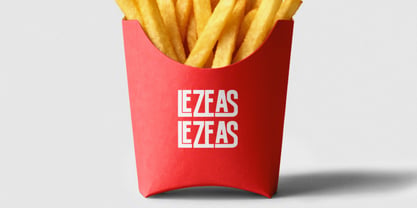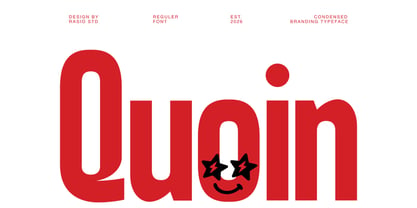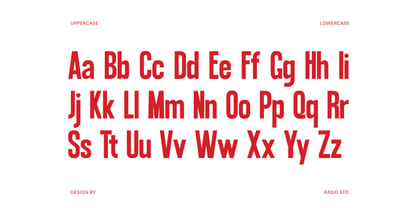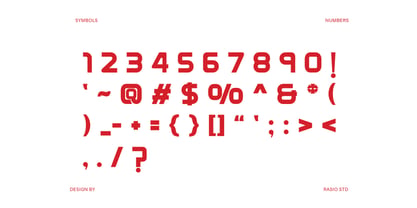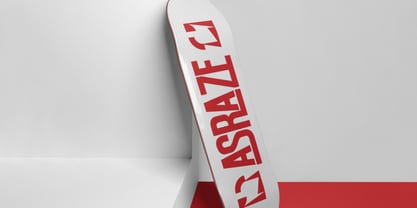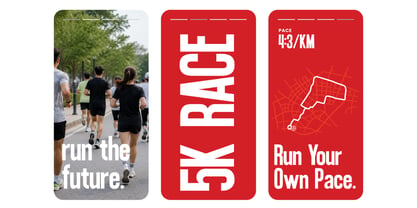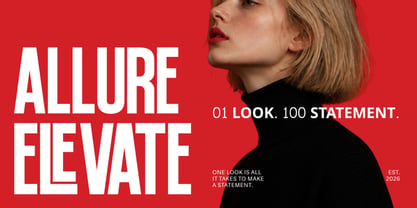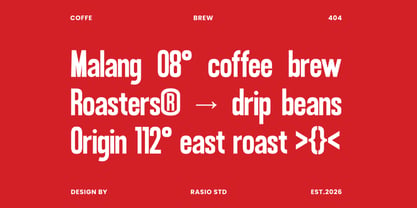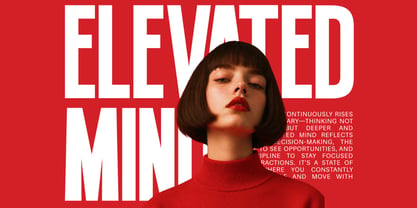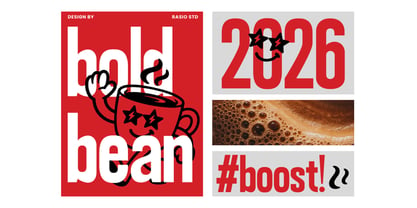
Quoin
by Rasio Studio
Quoin Condensed Branding Typeface showcases a bold condensed structure with clean geometric proportions and strong vertical rhythm. The typeface features tall characters, smooth curves, and compact spacing that create a striking modern branding appearance while maintaining excellent readability. Includes uppercase, lowercase, numerals, punctuation. Perfect for posters, coffee branding, packaging, editorial headlines, urban merchandise, and modern advertising layouts with a confident industrial aesthetic.
Relevance and Use Cases is perfect for branding systems, coffee packaging, streetwear labels, editorial headlines, poster campaigns, restaurant identities, merchandise graphics, digital advertising, and modern social media visuals. Its condensed proportions and bold visual impact make it highly effective for layouts that require strong readability and contemporary character.